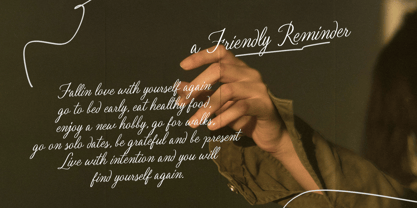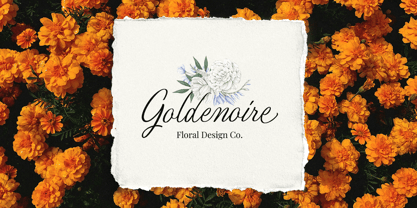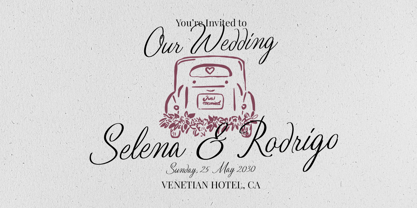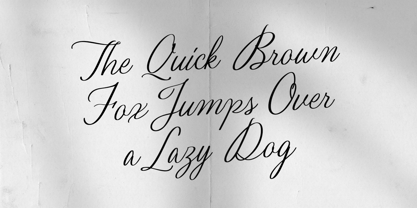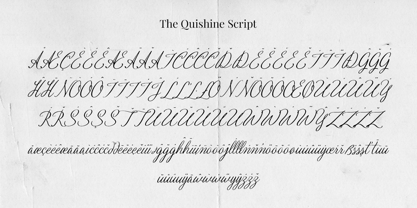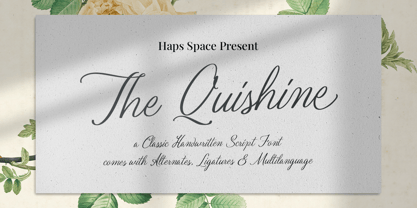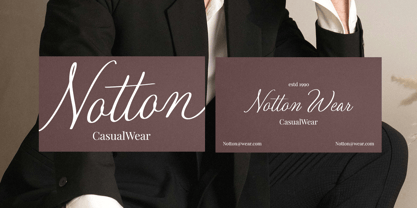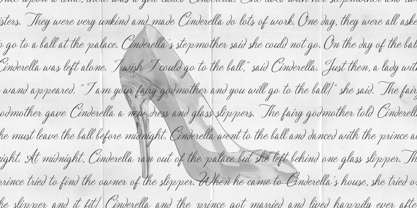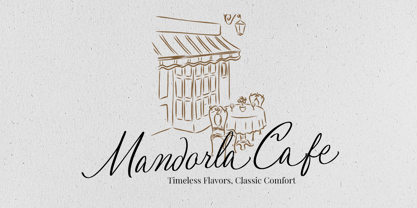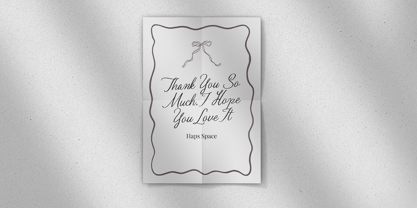
Quishine Classic Script
by Haps Space
The Quishine Classic Script Font Family was designed by Haris Purnama Putra, Egi Ahmad Mufid and published by Haps Space. Quishine Classic Script contains 1 styles. More about this family
Quishine font is a classically inspired handwritten script font. It exhibits refined and flowing letterforms characteristic of traditional calligraphy, lending an air of timeless elegance and sophistication to any design. This font is equipped with practical OpenType features, including stylistic alternates and ligatures, which provide designers with the tools to achieve nuanced and natural-looking typography. Furthermore, The Quishine offers comprehensive multilingual support, expanding its usability for a global audience. It is particularly well-suited for applications requiring a touch of classic charm and personalized artistry, such as branding for luxury goods, wedding invitations, editorial layouts, elegant packaging, and projects aiming for a sophisticated and handcrafted feel.
Designers: Haris Purnama Putra, Egi Ahmad Mufid
Foundry: Haps Space